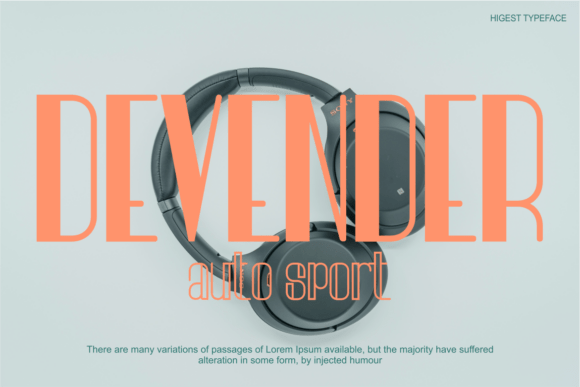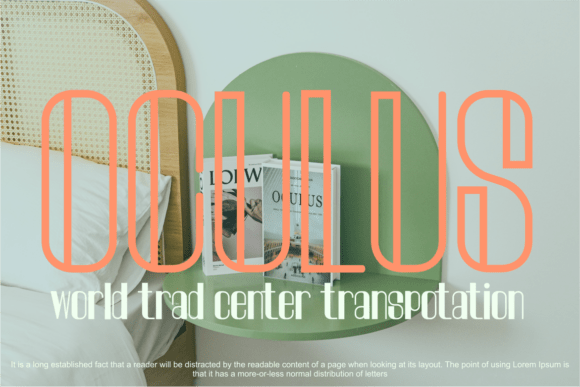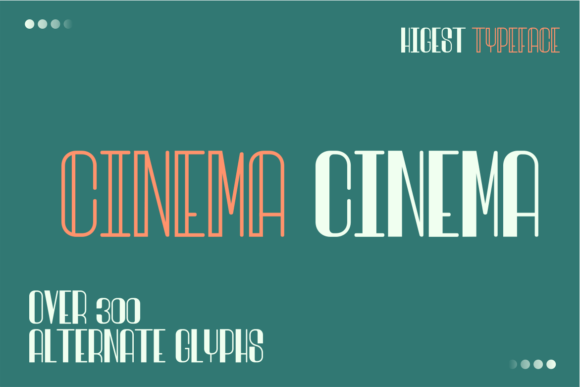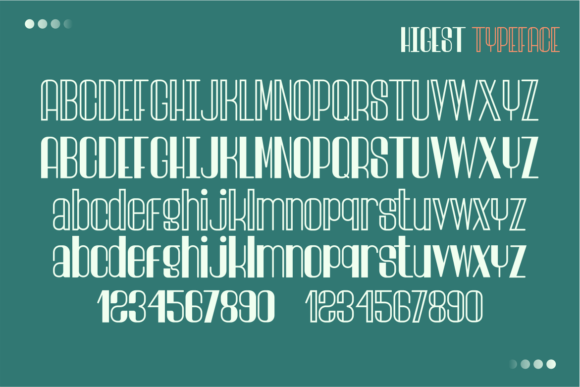
Introduction to Higest Font
Higest Font is a font with a modern and elegant design, offering a bold and stylish look.
Designed to give a professional yet attractive impression, this font is suitable for use in various design needs, from branding, posters, to websites With clean lines and balanced letter proportions, Higest provides clear reading even at small sizes.
Key Features of Higest Font
Why Choose Higest Font?
Higest Font offers exceptional quality and versatility, making it a valuable addition to your design toolkit. Whether you’re creating for personal projects or commercial use, Higest Font delivers professional results.